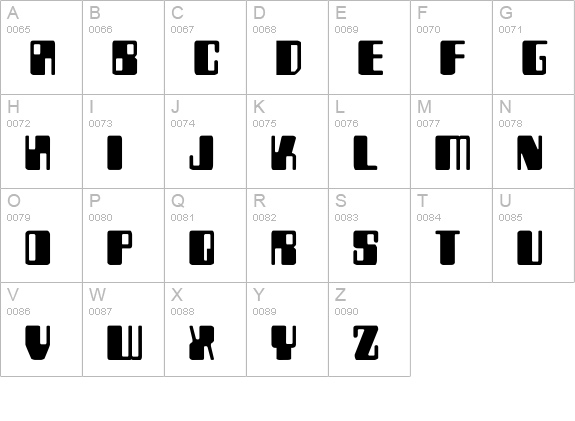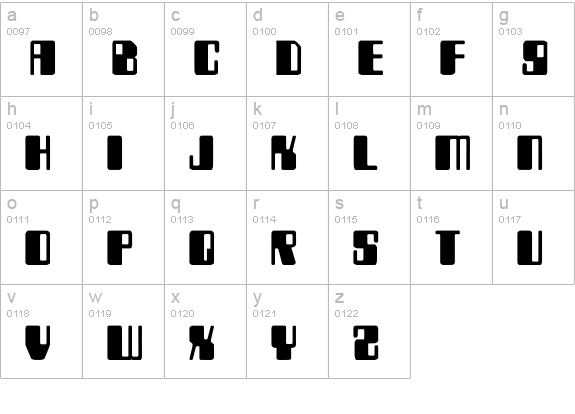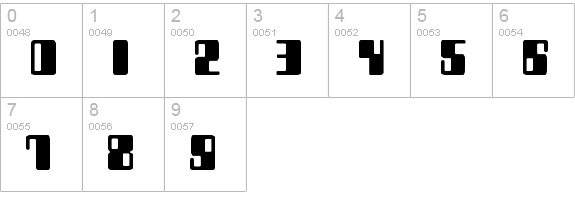
Zyborgs Font Details
Introducing Zyborgs font, a futuristic and sleek typeface designed to bring a modern aesthetic to your projects. With its sharp lines and geometric shapes, Zyborgs exudes a sense of innovation and cutting-edge style. This versatile font is perfect for a wide range of design applications, from branding to web design to print materials. Best of all, Zyborgs font is available for free download at FontsMarket.com. Whether you're a designer looking to add a unique touch to your work or a business in need of a fresh new look, Zyborgs is sure to make a statement. Don't miss out on this opportunity to elevate your designs with this stunning and contemporary font. Download Zyborgs today and take your projects to the next level!